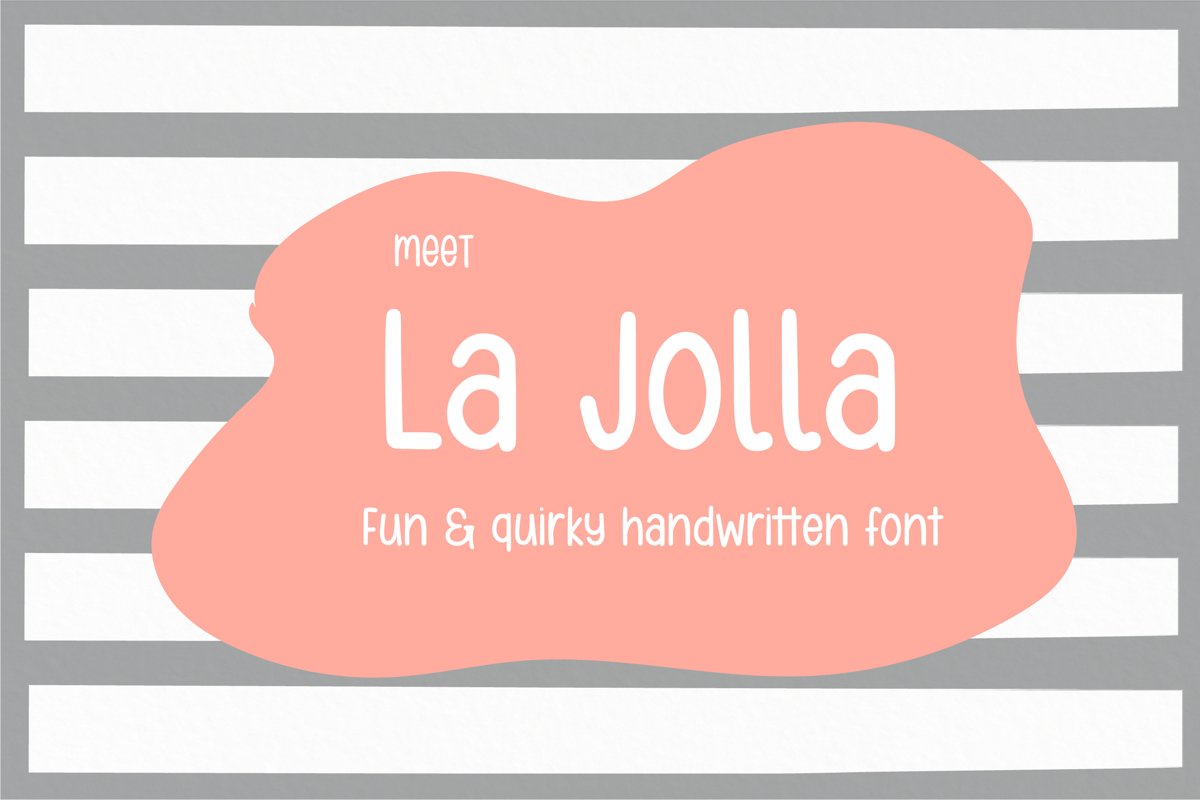
La Jolla
LaJolla
La Jolla is a fun and playful handwritten font.
It works just as well on the web and in print and is suitable for a wide variety of projects!
It contains all characters in the English alphabet as well as multilingual characters that support various European languages. There is an alternate stylistic set for uppercase letters that gives you more options and combinations!